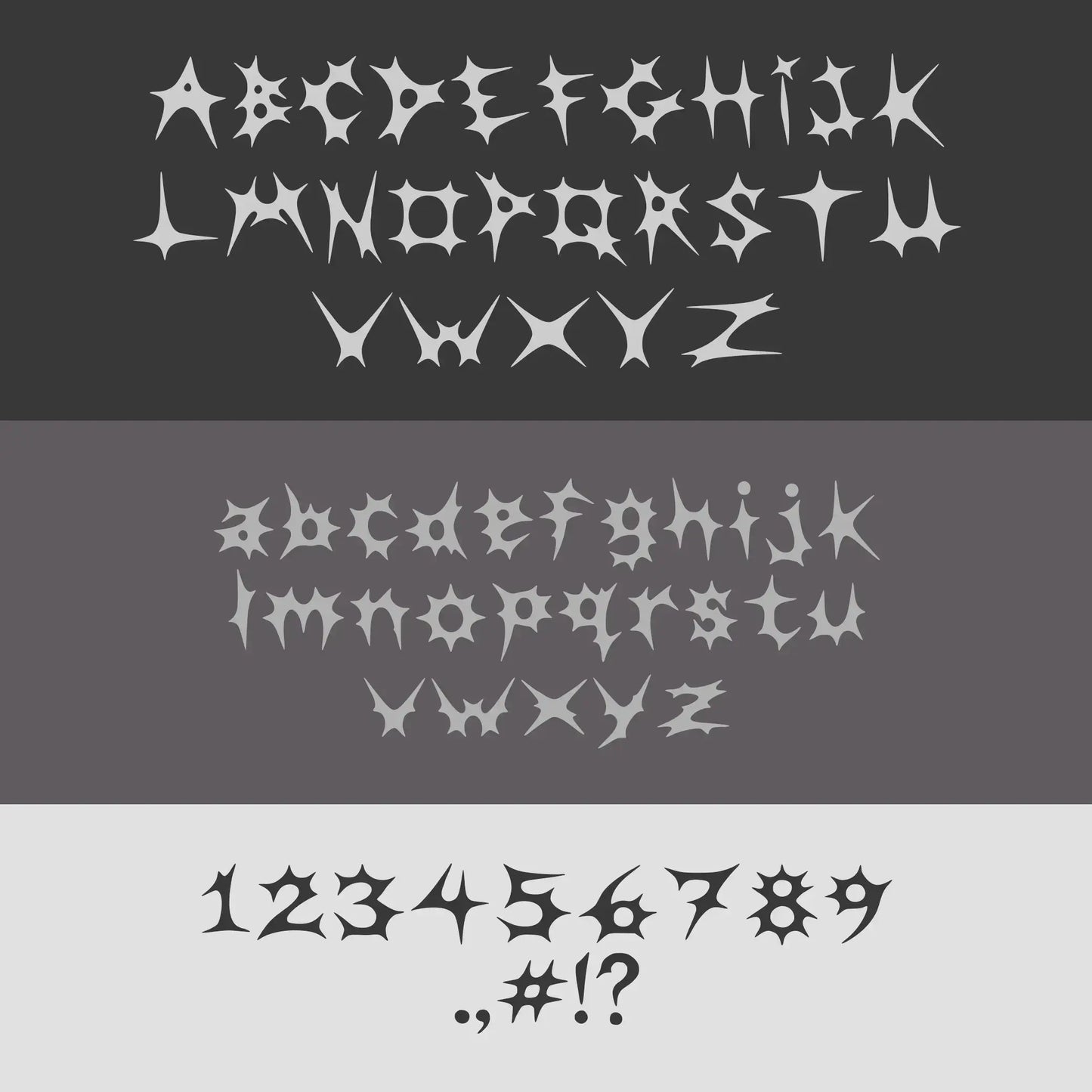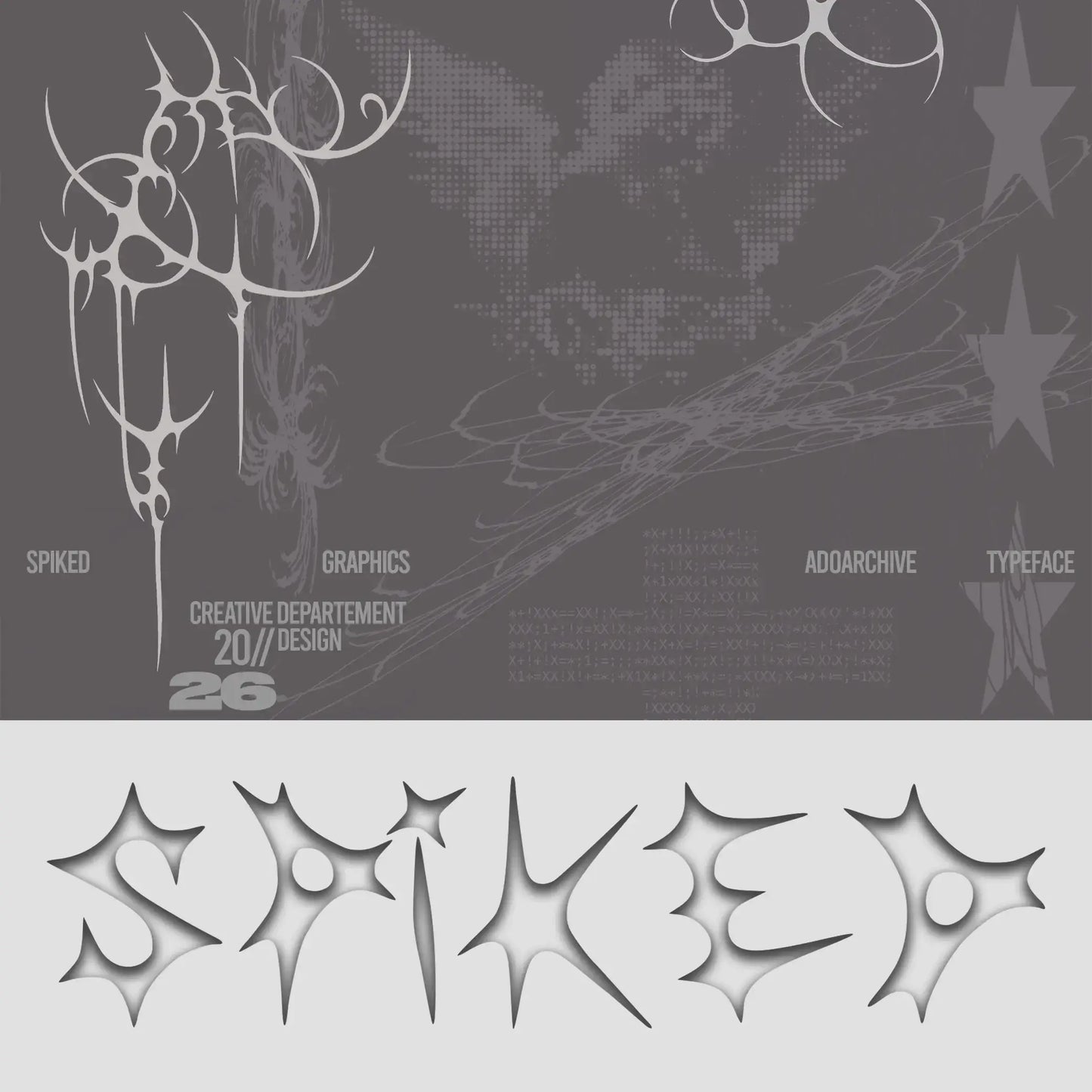
Spiked Typeface
Spiked Typeface is a distinctive display font designed for clothing brands, streetwear labels, and graphic designers who want a sharp, edgy typographic character that stands out.
- Full character set: A-Z, a-z, 0-9 + basic symbols
Perfect for: clothing brand logos, streetwear labels, apparel graphics, social media content, and editorial design.